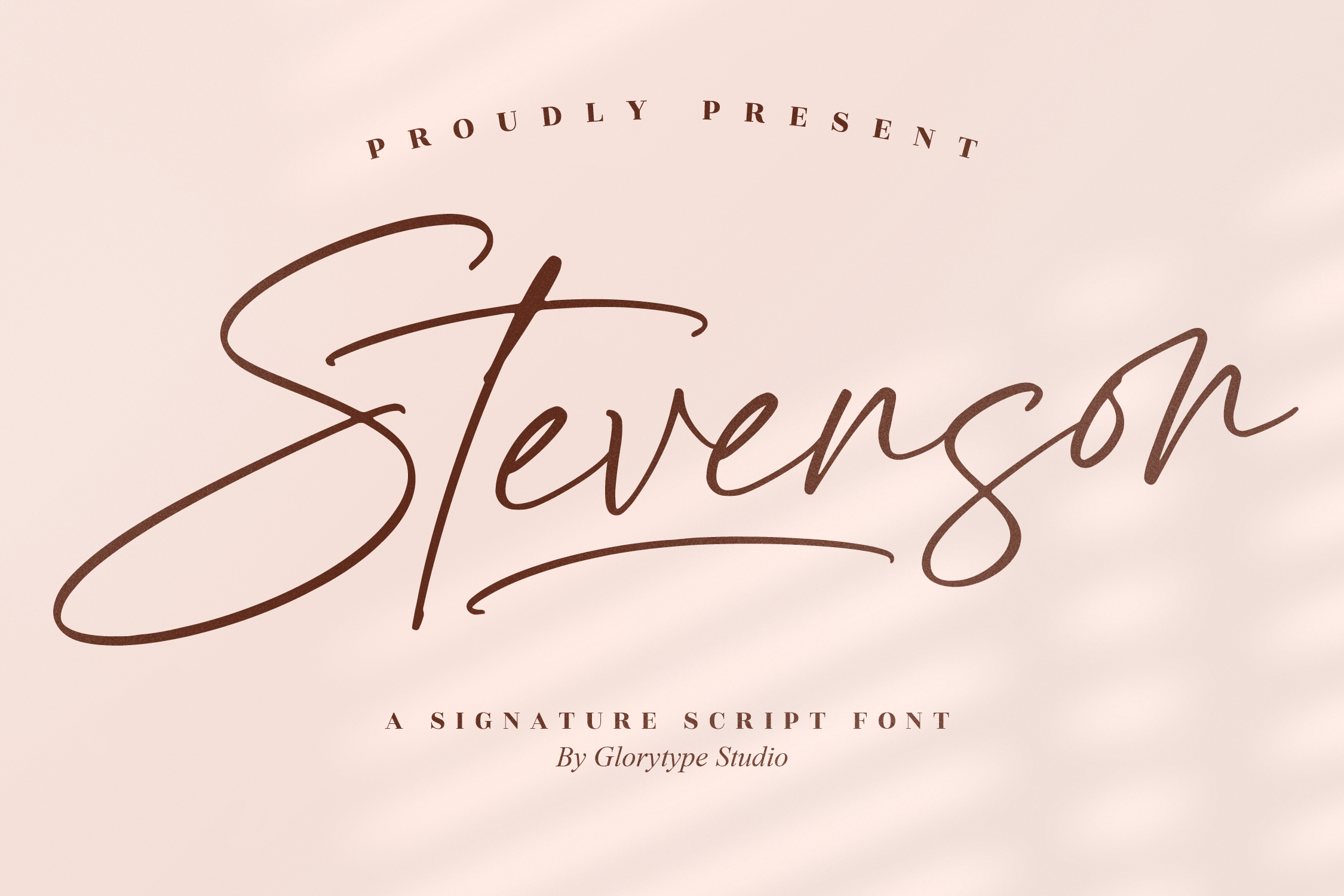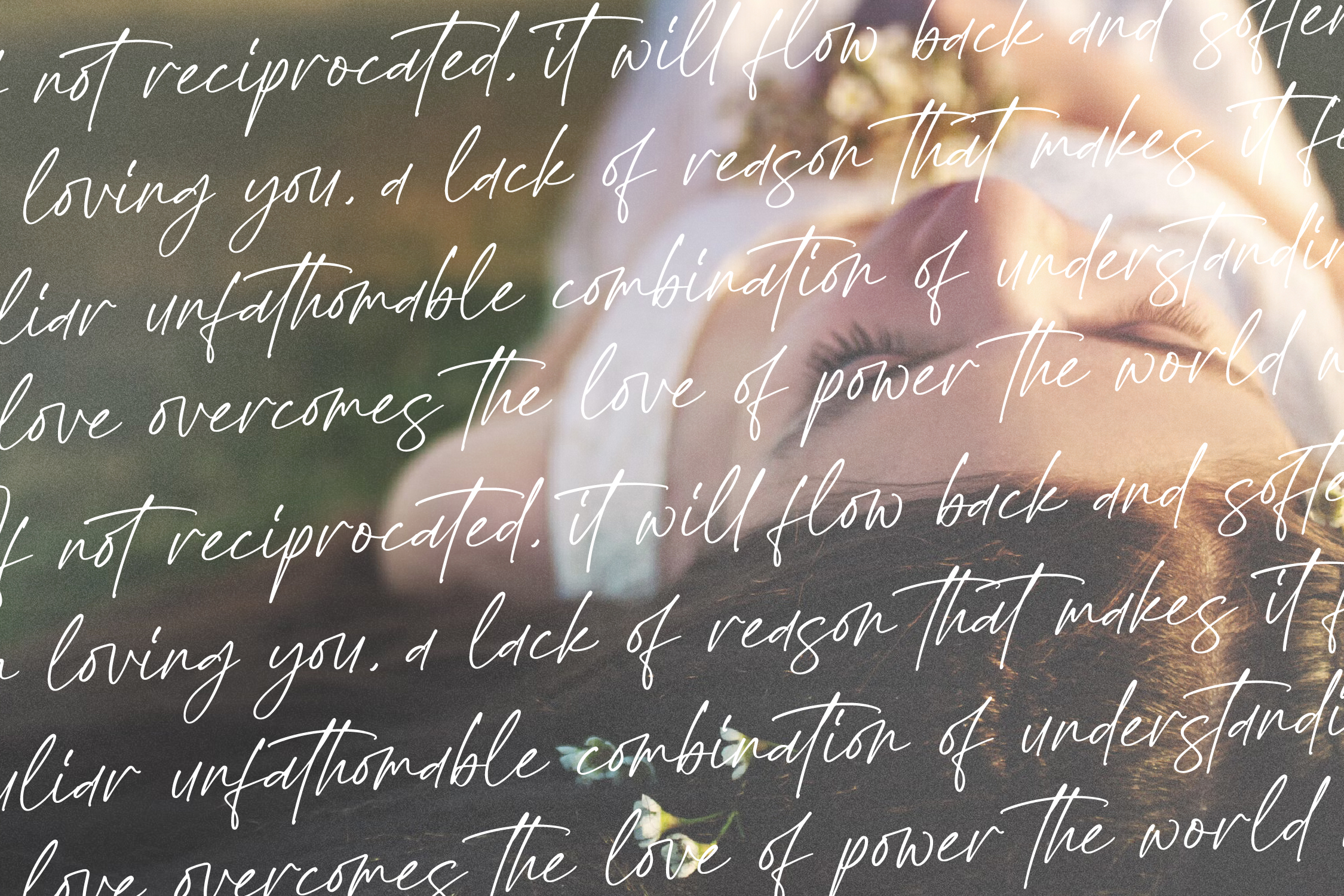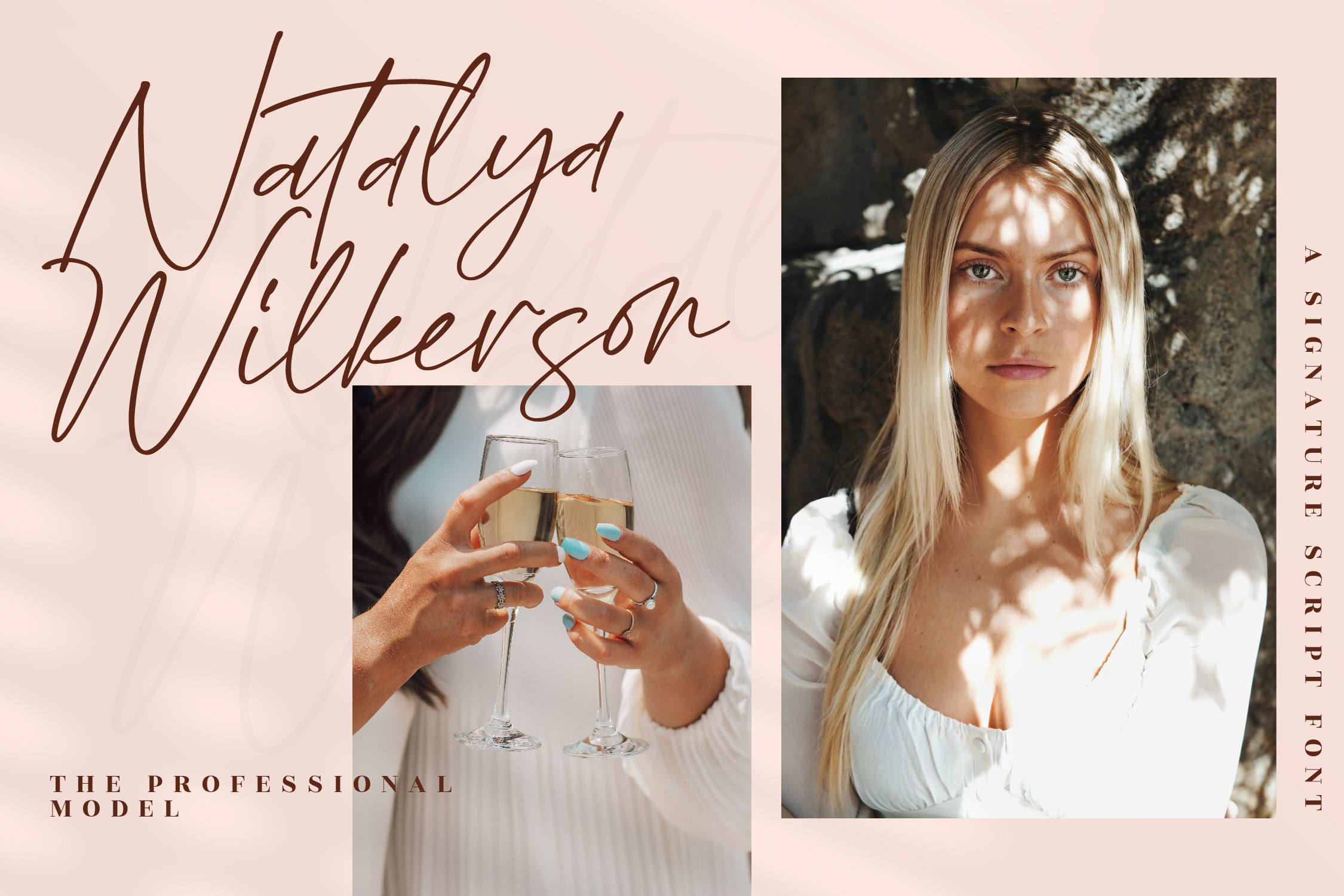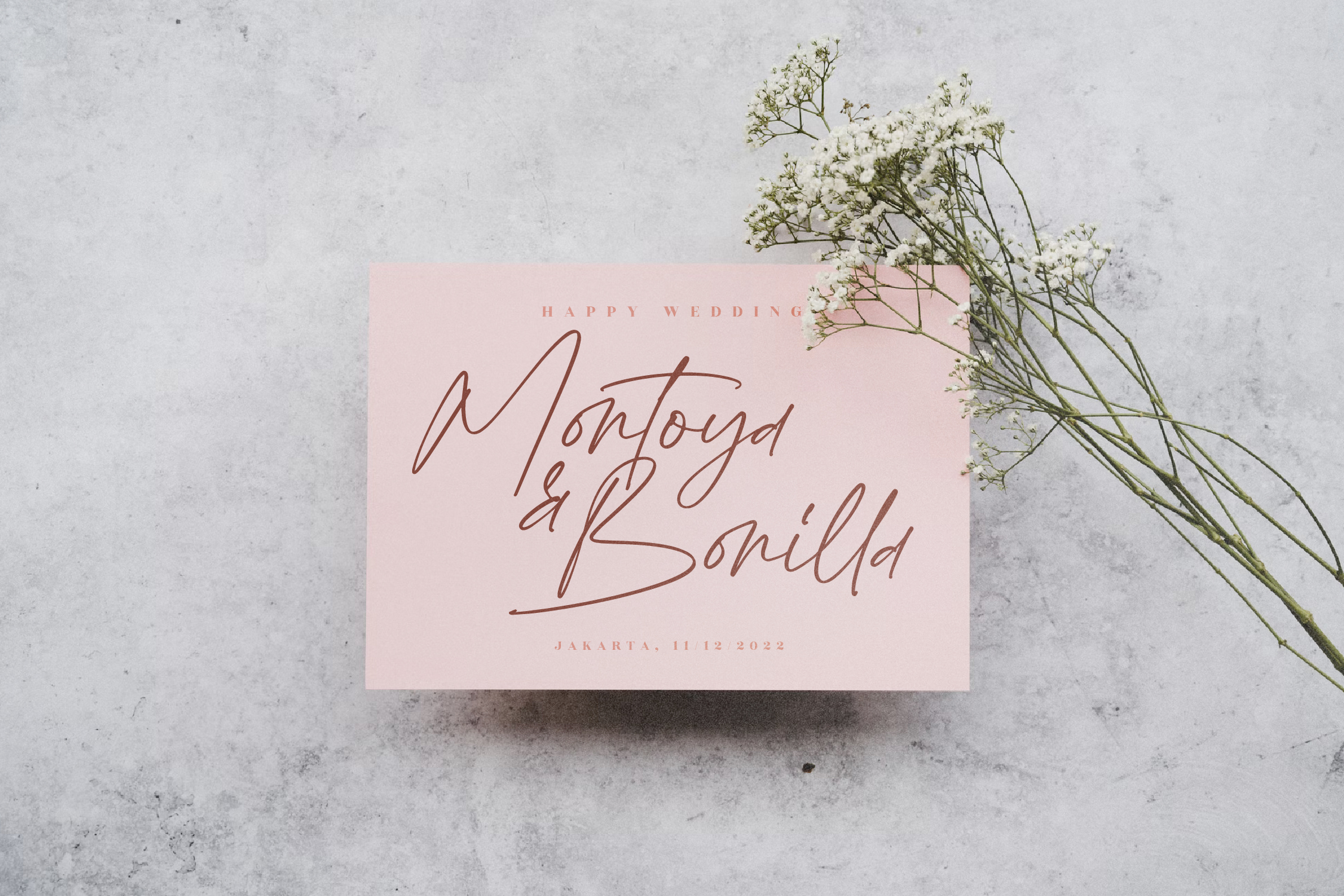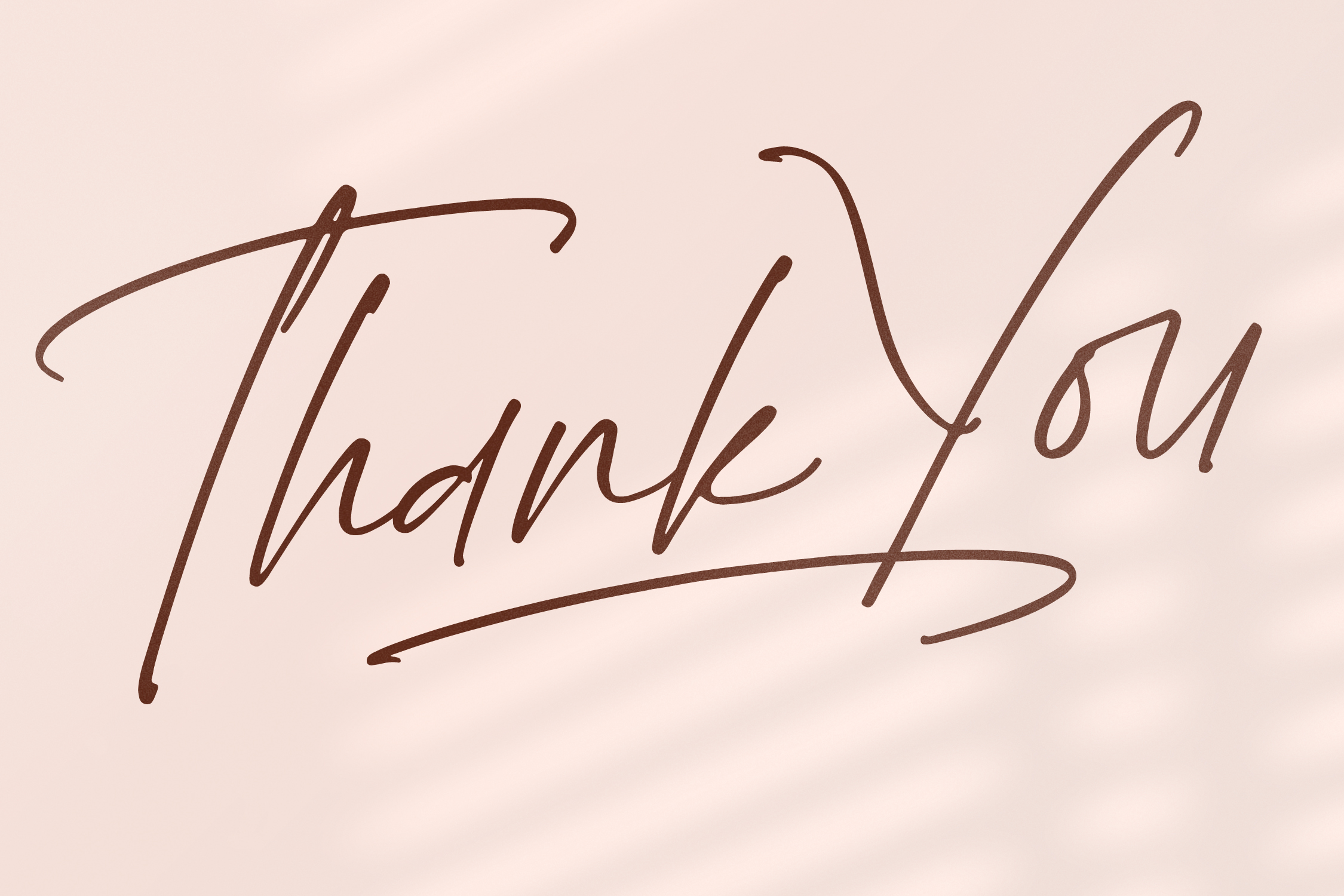
Stevenson Font
Stevenson Script Font
It’s a modern signature Font, suitable for any projects such as: logos, branding projects, homeware designs, product packaging, mugs, quotes, posters, shopping bags, t-shirts, book covers, name card, invitation cards, greeting cards, label, photography, watermark, special events, and all your other lovely projects that need a beautiful script taste.